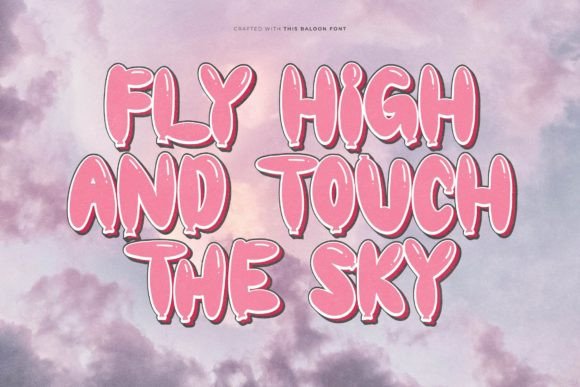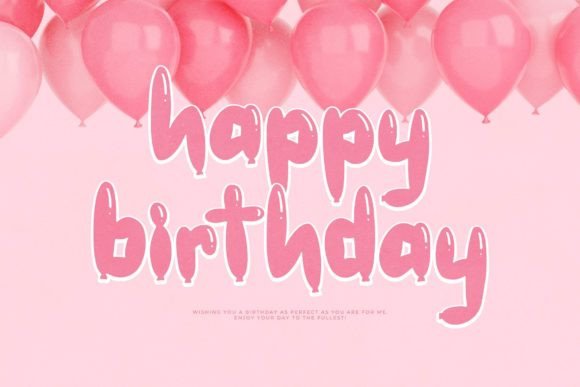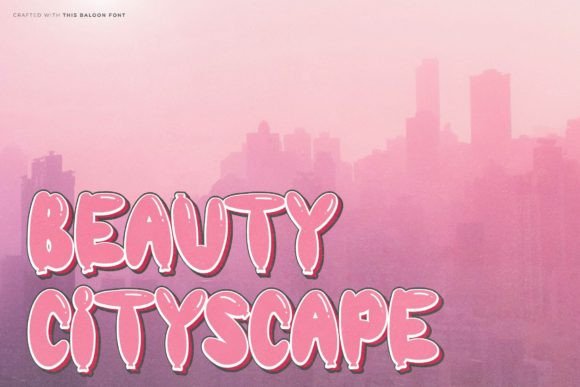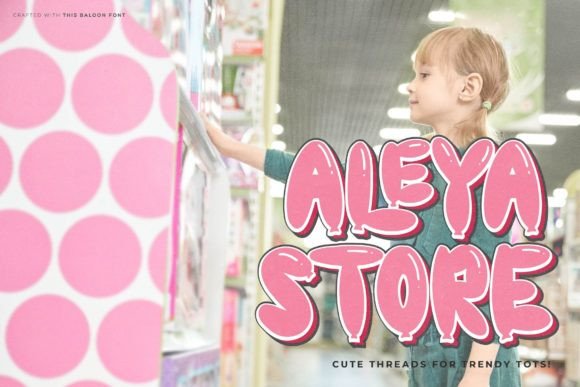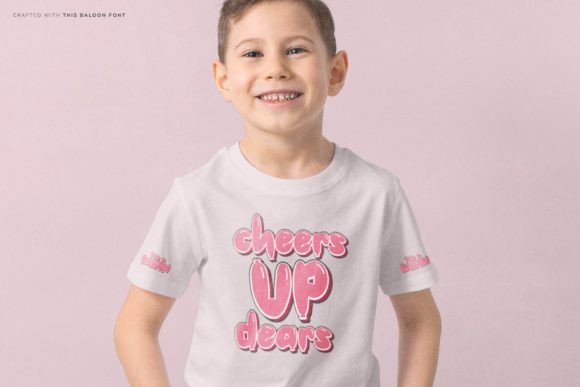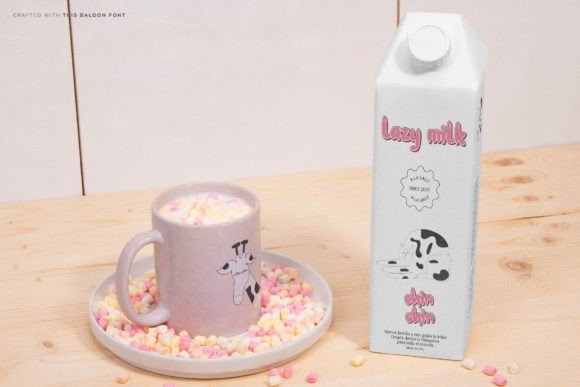
Introducing “This Balloon” – A Fun and Bubbly Font for Your Designs
Are you looking for a font that can add a playful and cheerful touch to your text? Look no further than “This Balloon”! This delightful font is designed to resemble playful, floating balloons, making it perfect for designers and crafters who want to add a light-hearted and whimsical feel to their work.
What is “This Balloon” Font?
“This Balloon” is a unique and creative font that features balloon-like characters that seem to be floating across the page. The font is designed to be fun and playful, making it ideal for use in a variety of design projects, from children’s party invitations to social media graphics and more.
Key Features of “This Balloon” Font
• Playful and Whimsical Design: The font features balloon-like characters that are sure to bring a smile to anyone’s face.
• Easy to Read: Despite its playful design, “This Balloon” font is easy to read, making it perfect for use in a variety of design projects.
• Highly Versatile: The font can be used in a range of design projects, from digital graphics to print materials.
How to Use “This Balloon” Font in Your Designs
“This Balloon” font is easy to use and can be incorporated into a variety of design projects. Here are a few ideas to get you started:
• Children’s Party Invitations: Use “This Balloon” font to create fun and playful invitations for kids’ parties.
• Social Media Graphics: Add a playful touch to your social media graphics, such as Facebook posts and Instagram stories.
• Crafting Projects: Use “This Balloon” font to add a personal touch to your crafting projects, such as handmade cards and gift tags.
• Digital Graphics: Incorporate “This Balloon” font into your digital graphics, such as blog headers and email newsletters.
Tips for Getting the Most Out of “This Balloon” Font
Here are a few tips for getting the most out of “This Balloon” font:
• Experiment with Different Colors: Try pairing “This Balloon” font with different colors to create a unique and eye-catching design.
• Use it with Other Fonts: Combine “This Balloon” font with other fonts to create a fun and playful design.
• Add Graphics and Images: Add graphics and images to your design to make it more visually appealing.
“This Balloon” font is a fun and bubbly font that’s perfect for adding a playful and light-hearted touch to your text. With its unique balloon-like design and easy-to-read format, it’s ideal for use in a variety of design projects. Whether you’re a designer or crafter, “This Balloon” font is sure to bring a smile to your face and inspire your creativity.